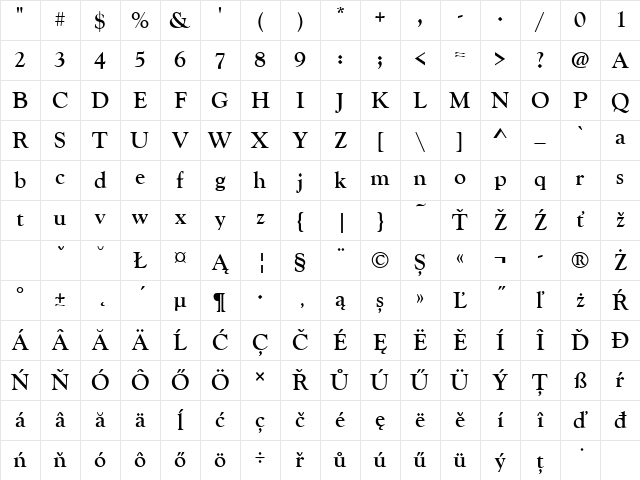
GoudyOldStyTEE Bold
Complete GoudyOldStyTEE Bold glyph index. Displaying only characters natively supported by GoudyOldStyTEE Bold font.
Design Context for GoudyOldStyTEE
GoudyOldStyTEE is a composed and adaptable typeface that performs quietly and consistently across a wide range of design contexts. Its bold stroke weight gives it real presence on the page.